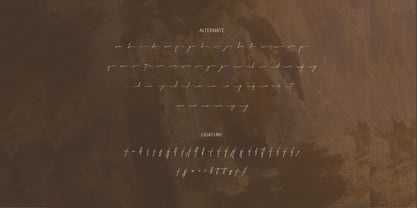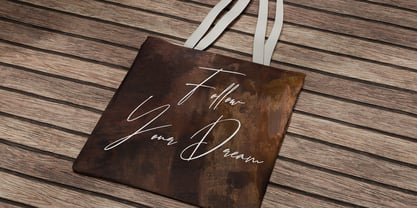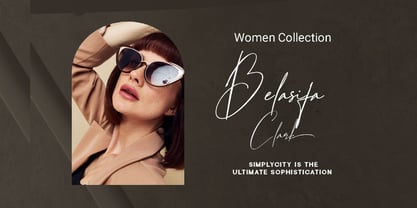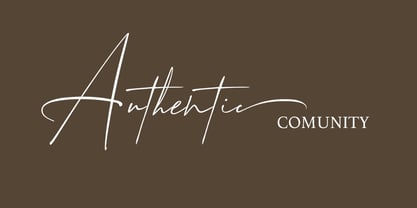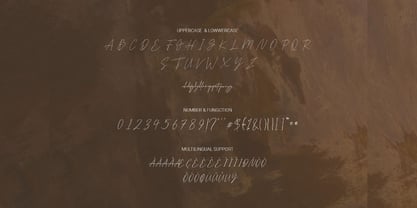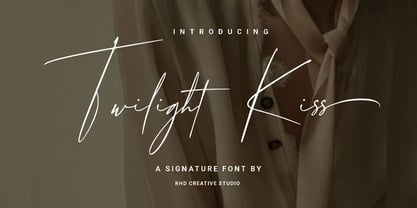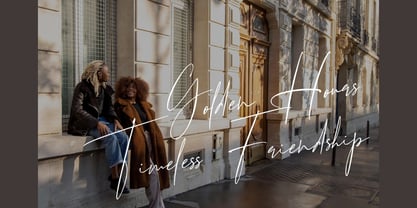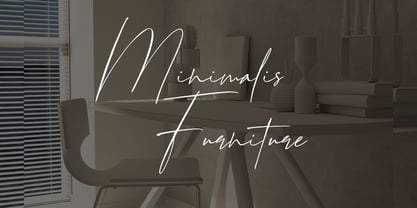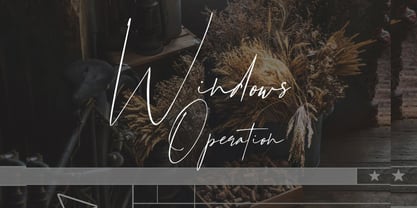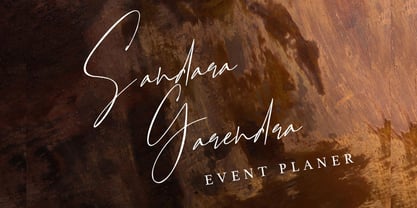
Twilight Kiss
The Twilight Kiss Font Family and published by RHD Creative. Twilight Kiss contains 1 styles. More about this family
Hello everyone, I would like to introduce Twilight Kiss - A Sgnature Font. Twilight Kiss - A Sgnature Font with Handmade character. Twilight Kiss - A Sgnature Font, Modern font to make your design project stand out! Twilight Kiss a perfectly choice for any creative endeavor, creating, modern, chic, lifestyle design such as logotype, title, cover, branding, invitations, wedding designs, display and magazine, social media posts, advertisements, printed quotes, product packaging, corporate brand, product designs, labels, photography, watermarks, special events and any other project with modern touch Thank you for your purchase! Hope you enjoy with our font! Thank you for your purchase! Hope you enjoy with our font!